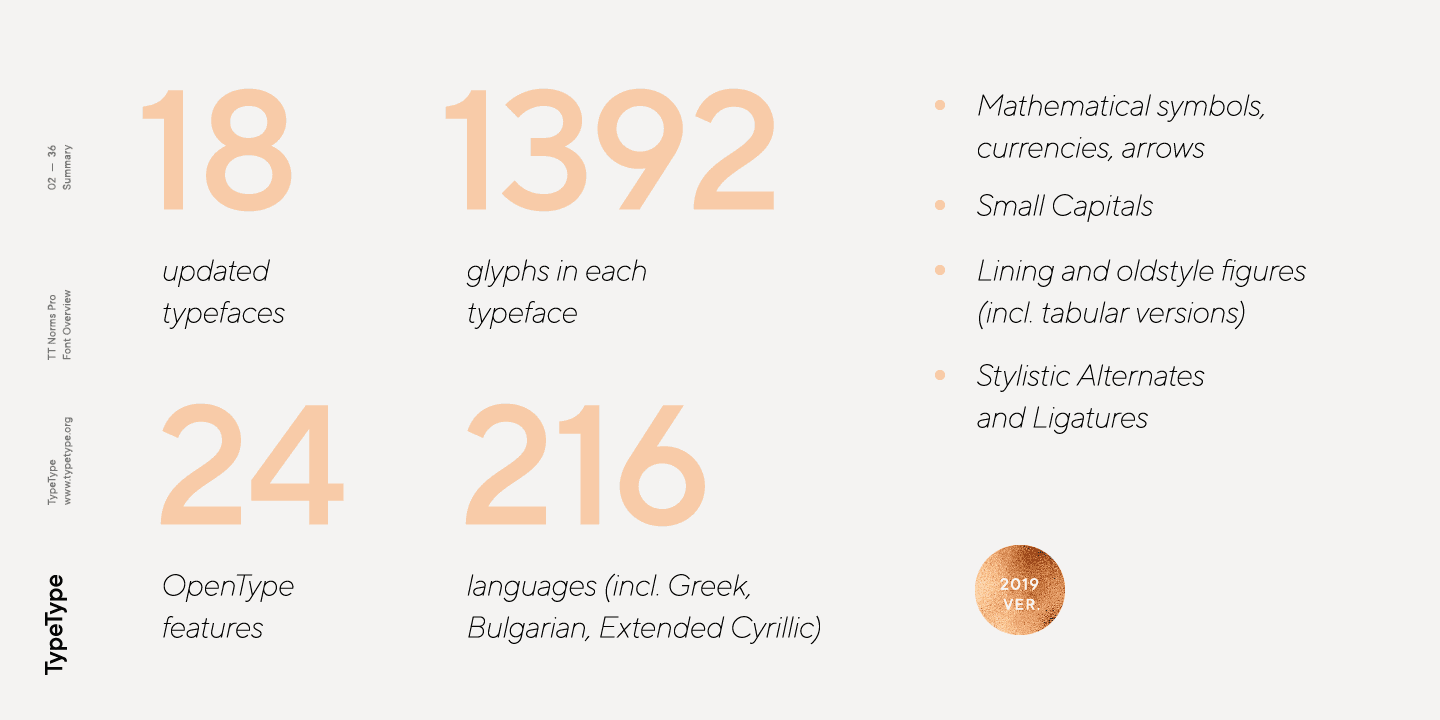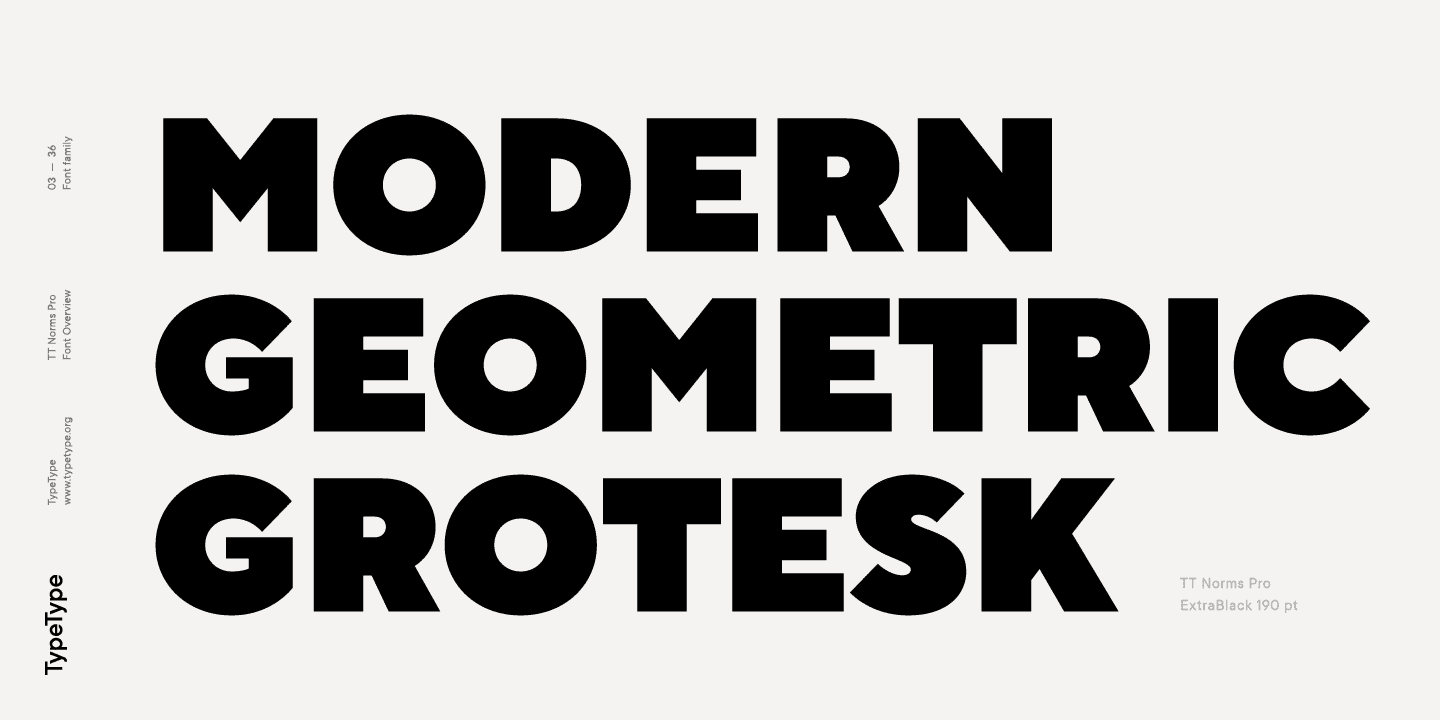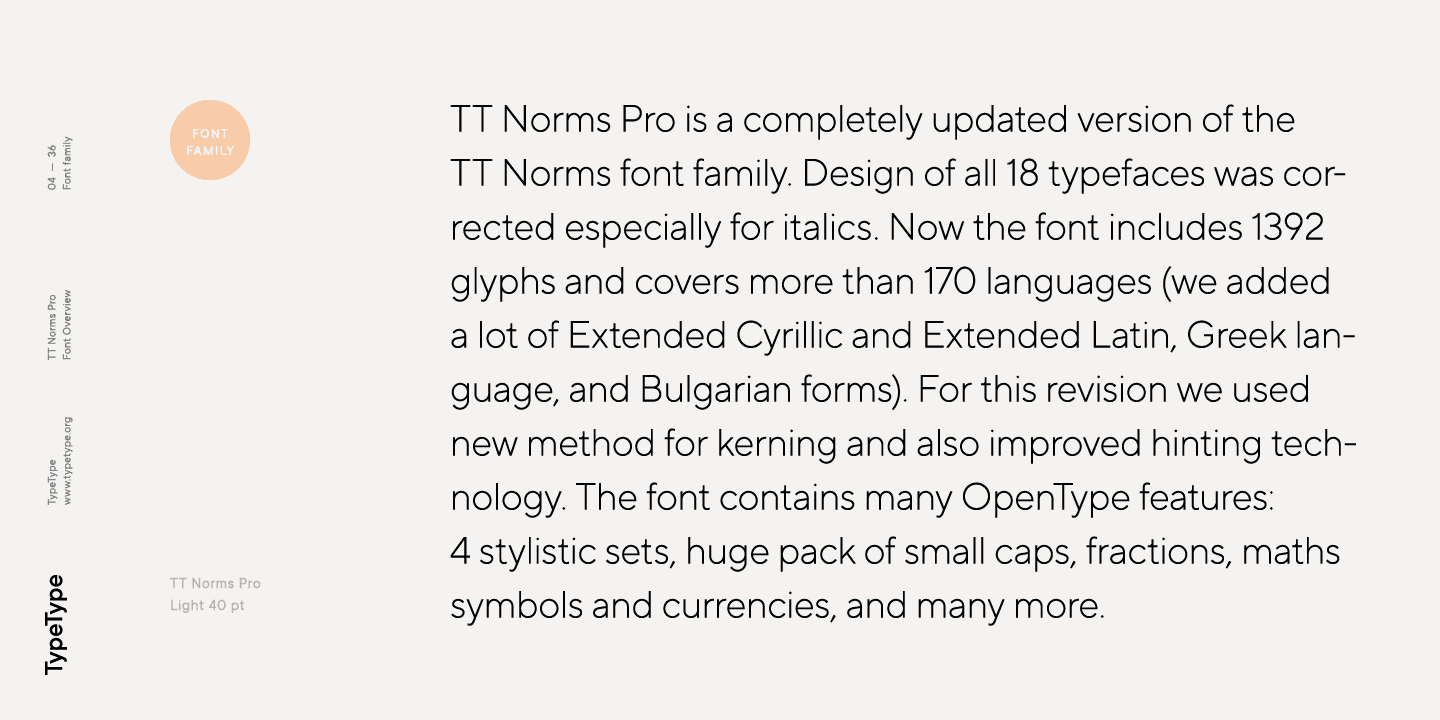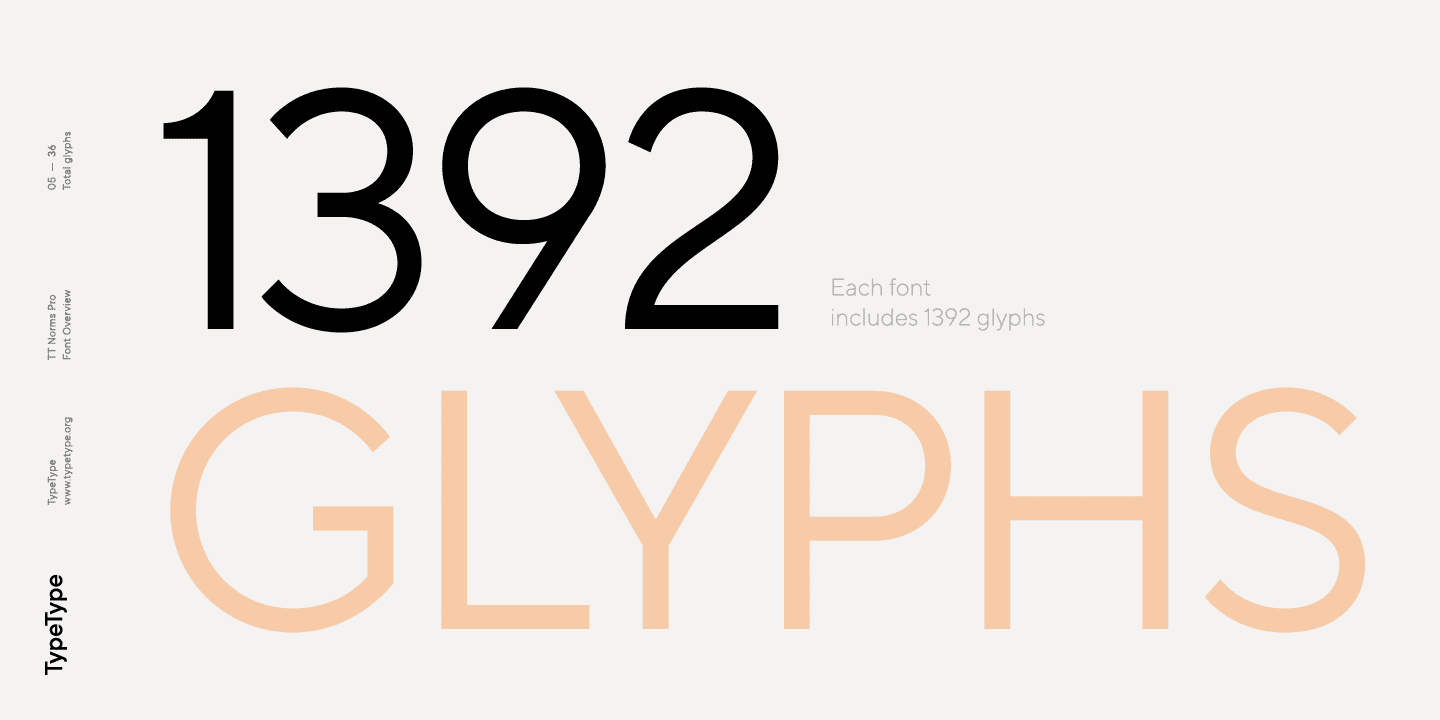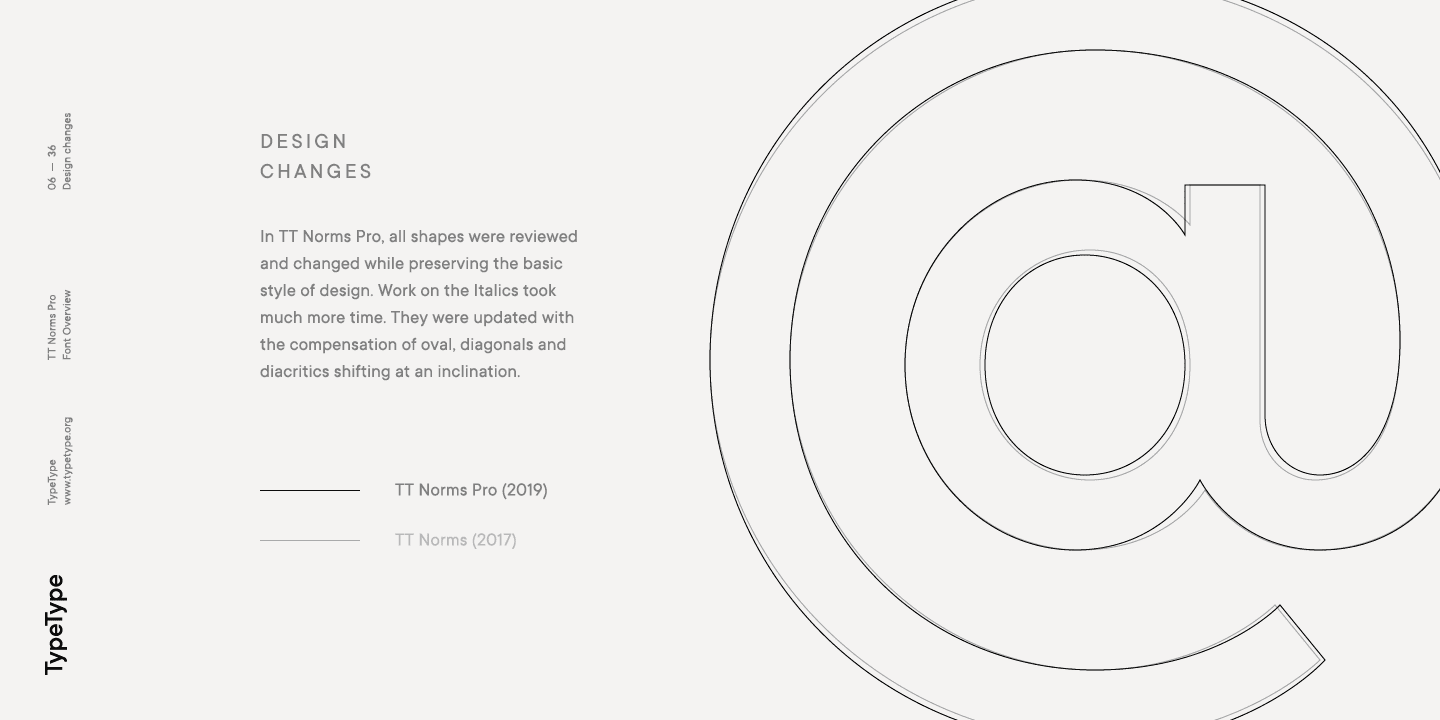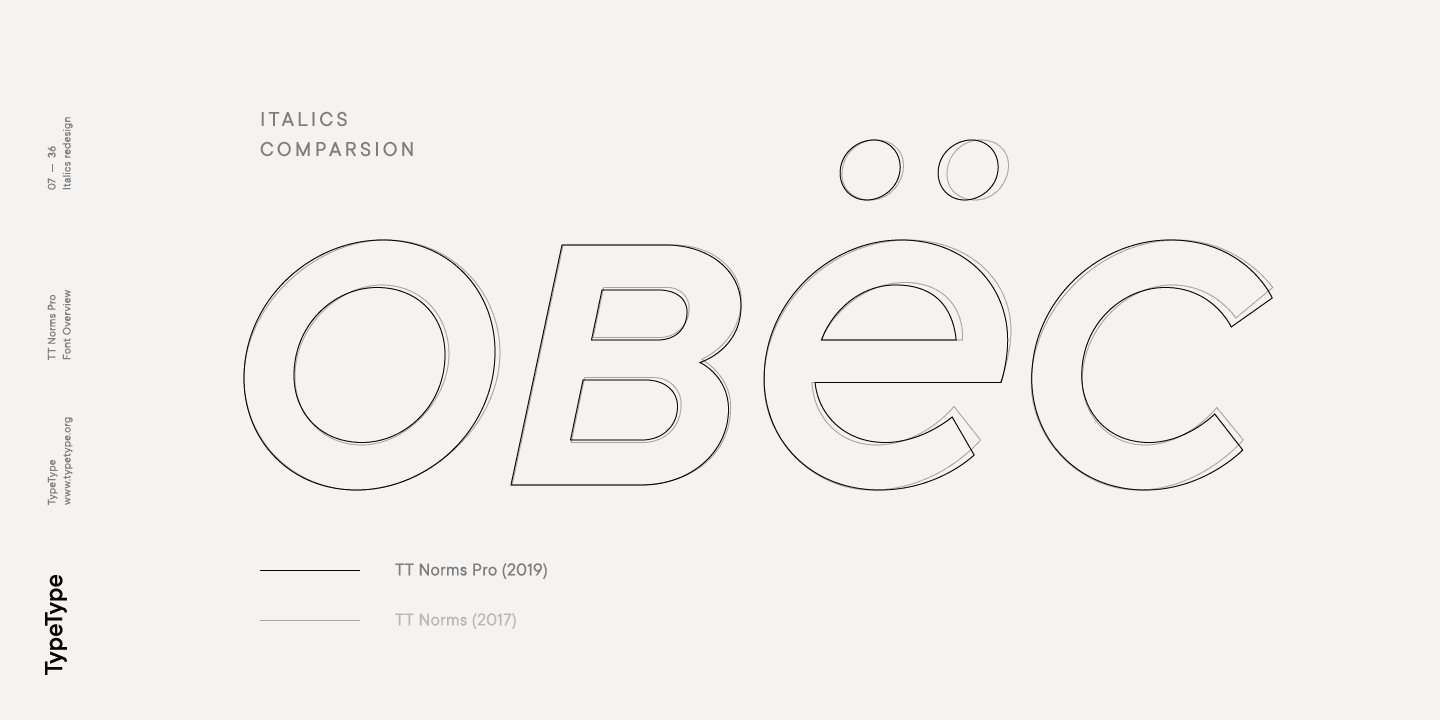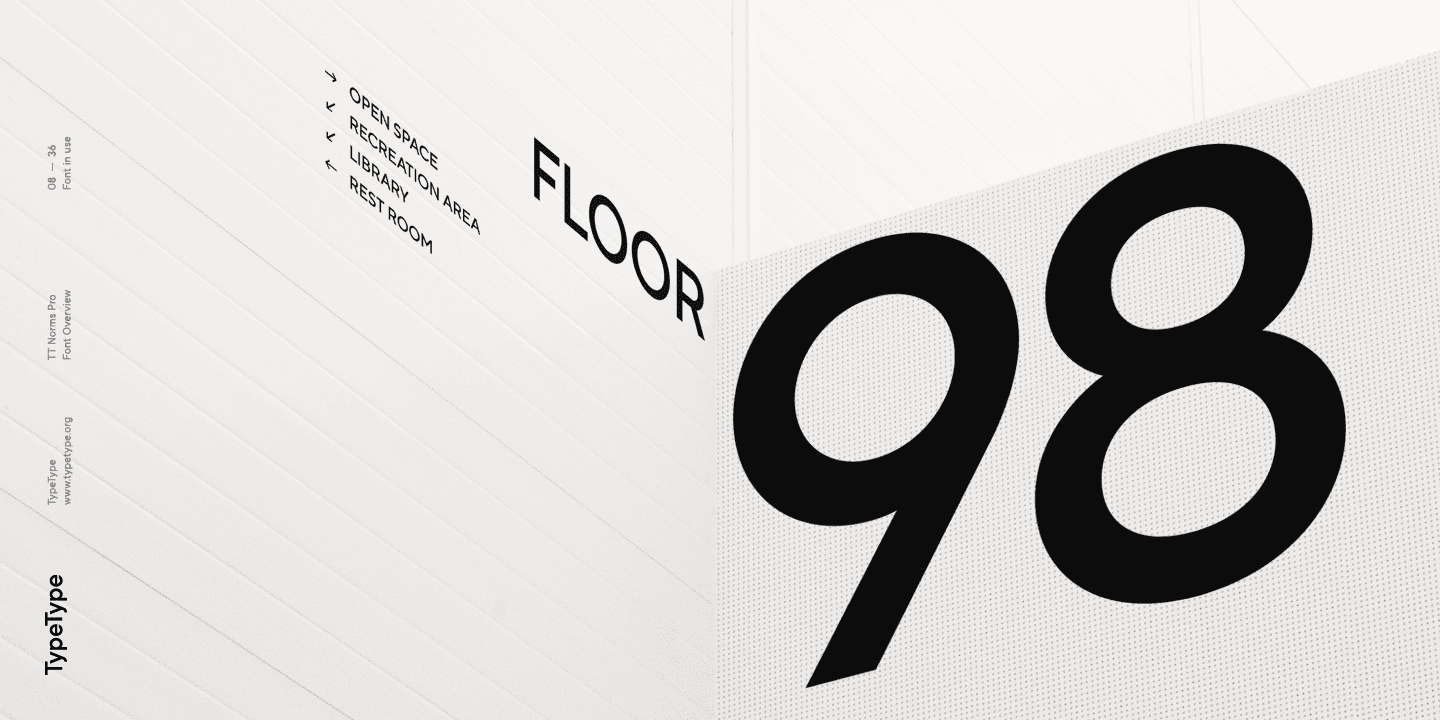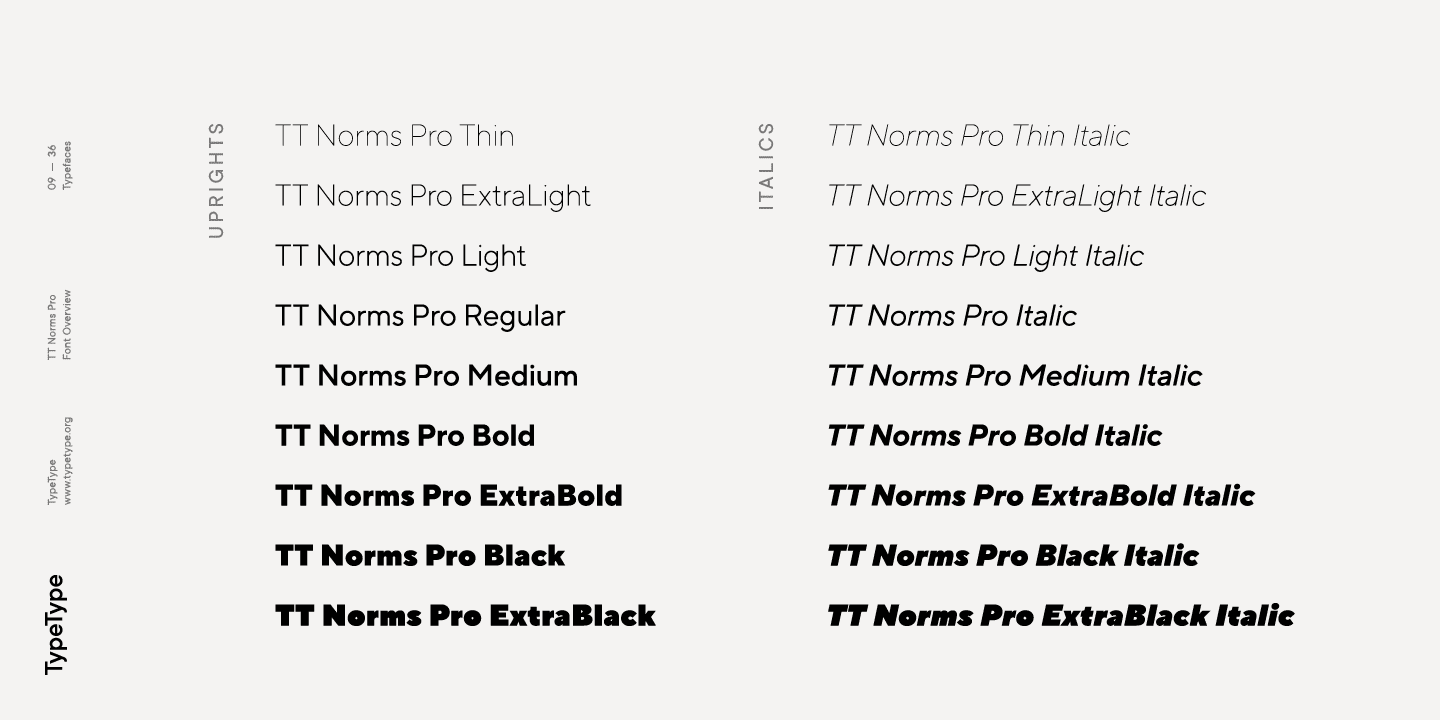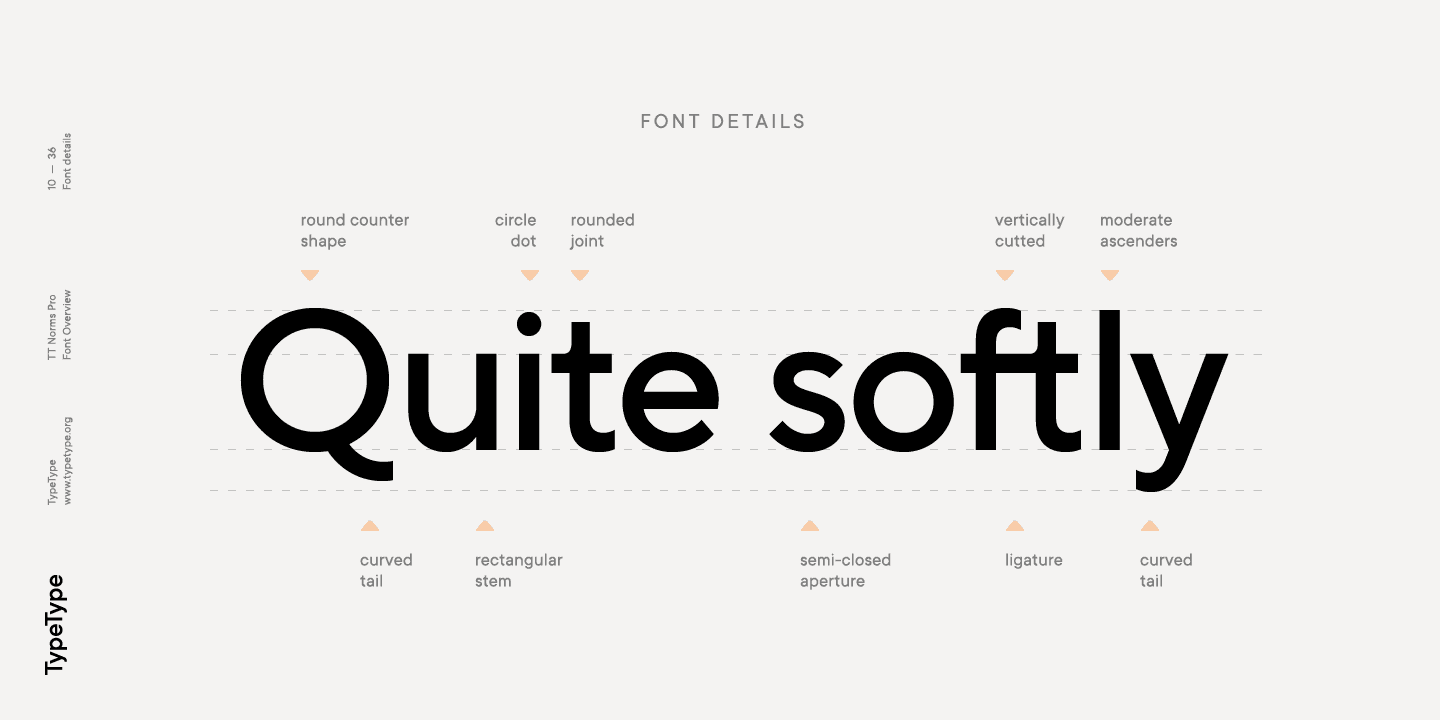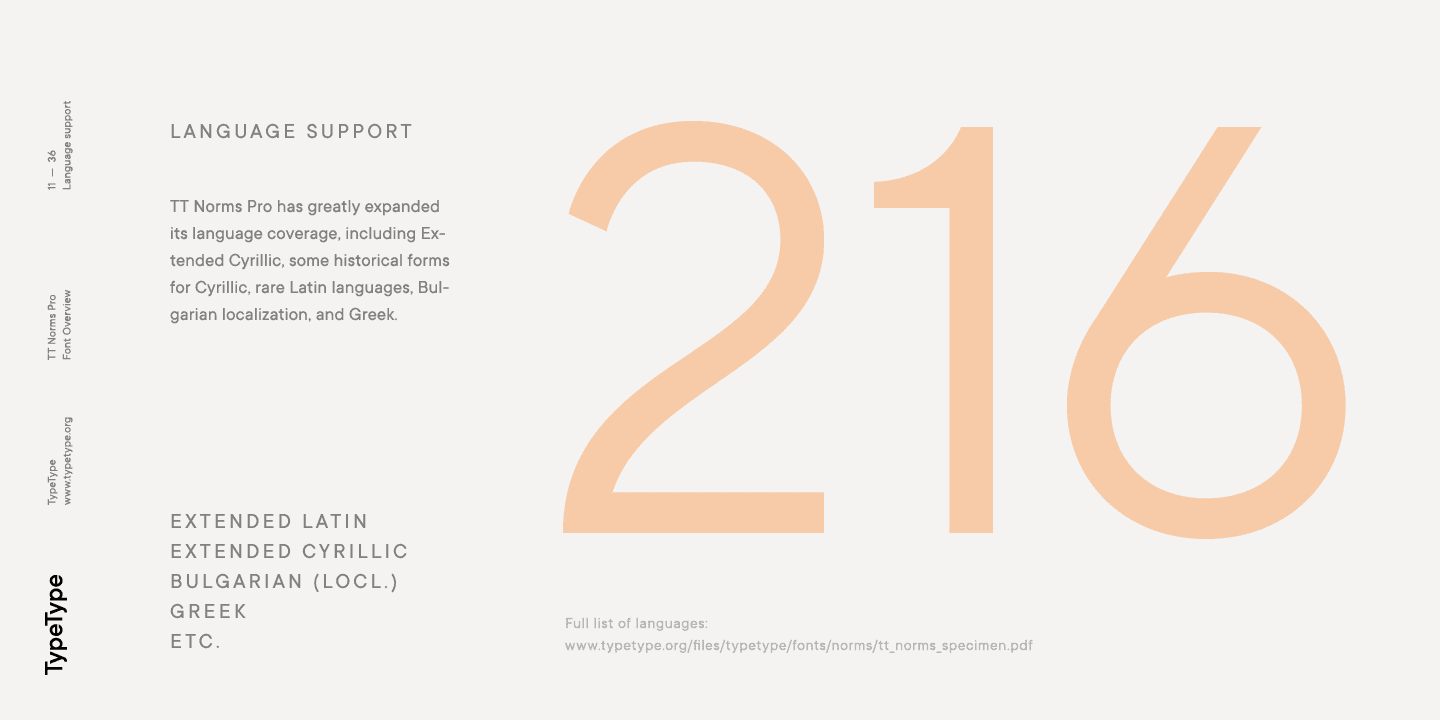
TT Norms Pro Family (18 fonts)
At the start, we’ve looked at all the existing glyphs and corrected their contours, after which we significantly upgraded the character set of the family. Now you can count on 1392 glyphs in each font, instead of 610 glyphs, as it was in the original version. After that, we’ve created new italics, paying particular attention to the compensation of ovals, diagonals and the offset of diacritics when slanted. We completely redid the kerning, and recreated hinting from scratch—especially for TT Norms Pro, we developed a new hinting technique and a technique for its testing.
And now we will talk more about the character set in TT Norms Pro and what influenced its growth. First of all, this is language support—over 100 new languages appeared in TT Norms and the total number of supported languages now exceeds 216. In addition to extended Latin and extended Cyrillic, Greek finally appeared in the typeface. For some languages, for example for Bulgarian, we have prepared localized versions of the forms of some characters. And as a bonus, we drew several historical Cyrillic characters.
In addition, now TT Norms Pro boasts small capitals, a set of mathematical symbols and a large number of currency signs, arrows and numbers in circles, a large set of fractions, stylistic alternates and ligatures. Despite all the work done, TT Norms Pro continues to be a geometric sans serif for a wide range of applications—a trouble-free workhorse. TT Norms works equally well both in large text arrays or in headlines, as well as in web and it is “the one”, the indispensable universal modern geometric sans.